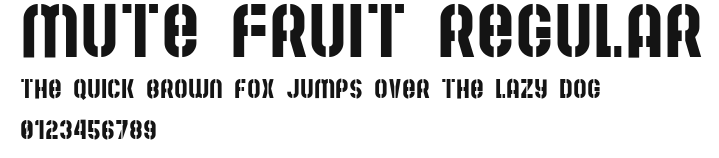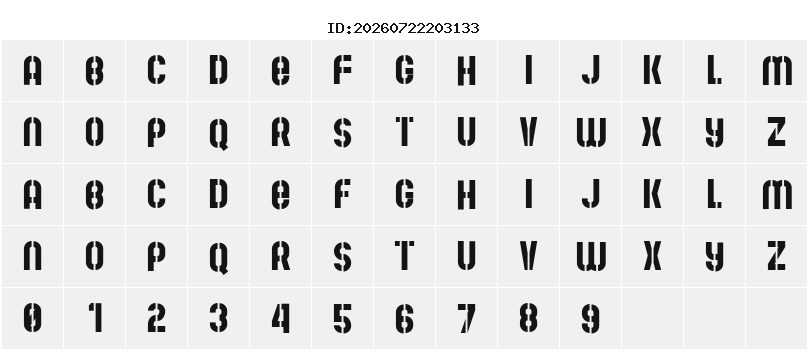
• Font Name: Mute Fruit Regular
• Font ID: JakobFischeratwww.pizzadude.dk: Mute Fruit: 2002
• Full Font Name: Mute Fruit Regular
• Version: 2002; 1.0, initial release
• PostScript Name: MuteFruitRegular
• Character Count: 220
About Mute Fruit Regular.ttf
Mute Fruit Regular.ttf is a modern, elegant sans-serif font designed for ultimate readability and visual harmony. Perfect for branding, headlines, web design, and print materials.